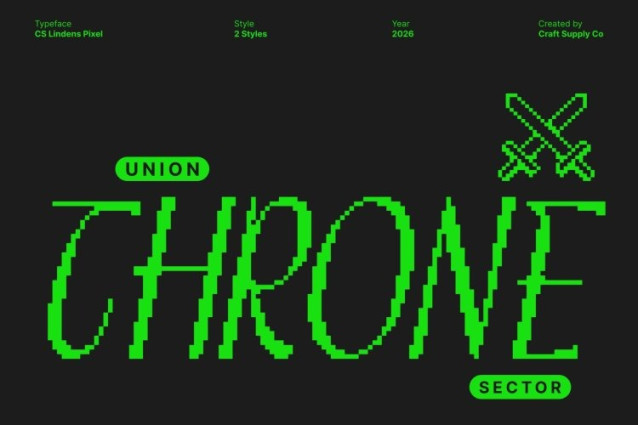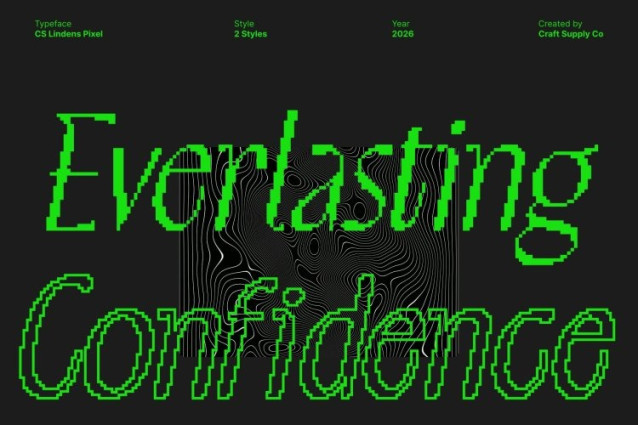
CS Lindens Pixel Font
CS Lindens Pixel Font This is a minimalist sans serif font that combines refined elegance with subtle digital detailing. Its clean lines, balanced proportions, and pixel-inspired accents create a modern aesthetic that feels both precise and effortlessly stylish. Perfect for designs that aim for sophistication and clarity in a digital-first world.
Minimalist Structure with Sleek Pixel Geometry
Every letter is crafted with careful attention to spacing, geometry, and balance, enhanced with pixel alignment for a contemporary digital edge. The result is a font that is light, readable, and visually harmonious, delivering elegance without excess.
Modern Digital Vibe with Aesthetic Refinement
This font captures the spirit of modern online and lifestyle trends. Its understated, digital-friendly style communicates luxury through simplicity, making it ideal for fashion, lifestyle, and tech-forward branding that values subtle sophistication.
Perfect for Social Media, Fashion, and Lifestyle Branding
Designed for versatile use, this font works beautifully across social media posts, websites, luxury branding, packaging, and promotional visuals. Its clean, pixel-enhanced letterforms provide a refined, professional appearance that feels contemporary, polished, and visually engaging